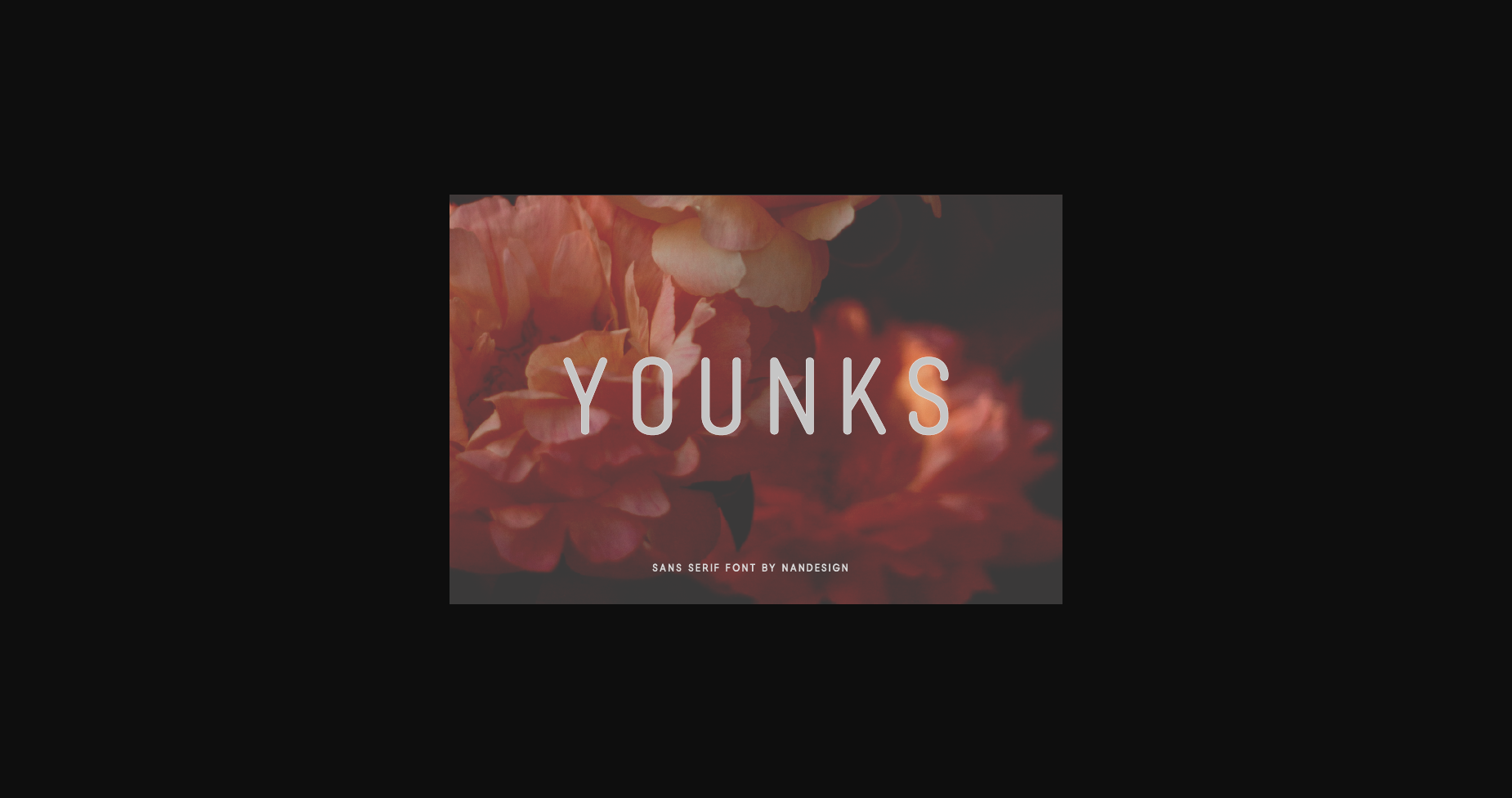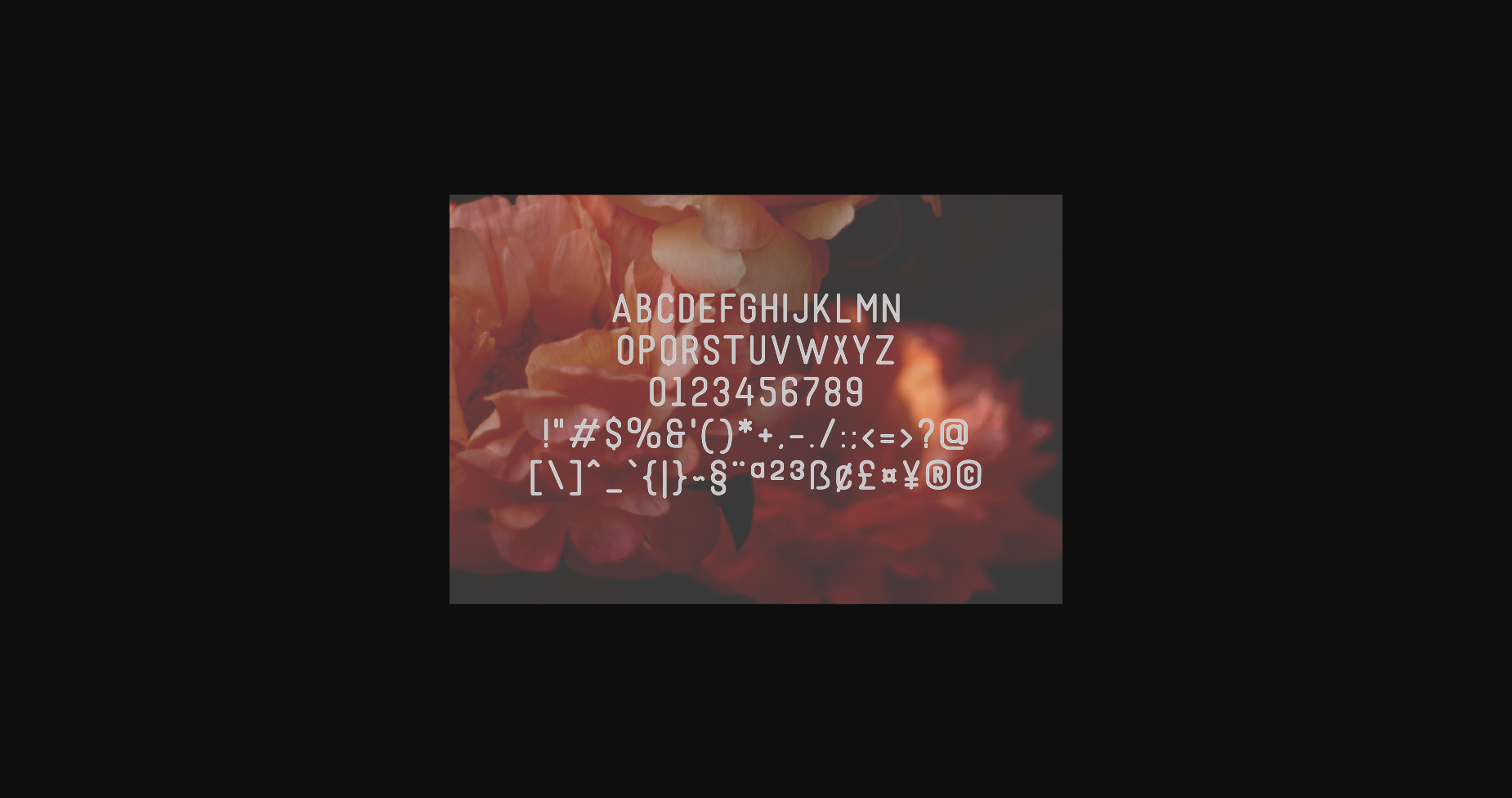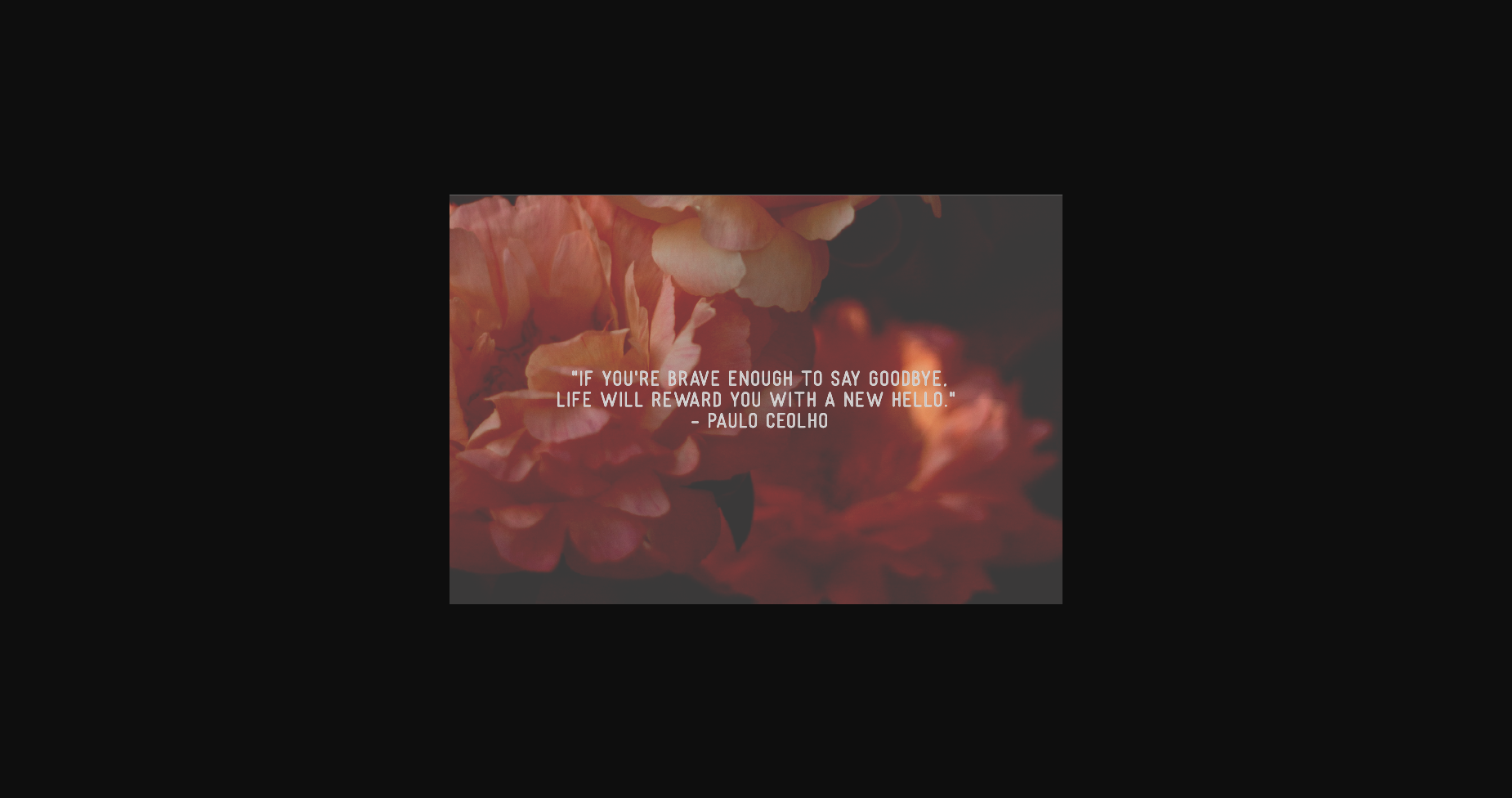
Younks Font
About Younks Font
Younks is a minimal and neat sans serif font. It can easily be matched to an incredibly large set of projects, so add it to your creative ideas and notice how it makes them stand out!